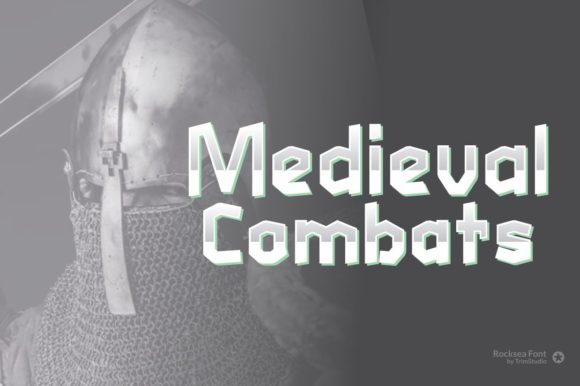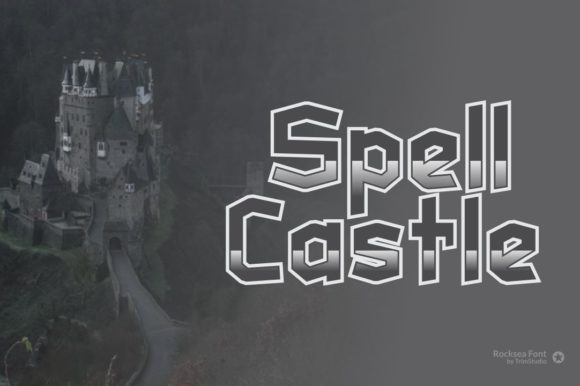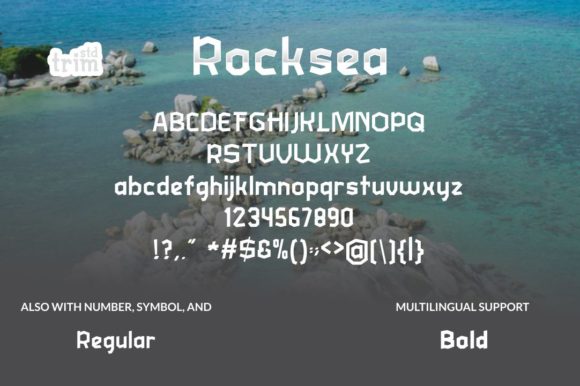
Introduction to Rocksea Font
Have you ever stared at a blank canvas, eager to bring your creative vision to life, but struggling to find the perfect design resource? This is where the magic of Rocksea Font comes in – a game-changing, bold display font that can elevate your creative project to new heights. Whether you’re working on a graphic design project, a branding campaign, or a digital art piece, Rocksea Font has the power to make your ideas shine.
With its unique and eye-catching design, Rocksea Font is a valuable addition to any designer’s toolkit. Whether you’re looking to create a stunning title, add a touch of elegance to your design, or simply want to experiment with a fresh new look, Rocksea Font is the perfect choice. And the best part? You can download it for free, giving you the freedom to unleash your creativity without any limitations.
- High-quality design resource suitable for creative projects, offering a professional look and feel.
- Includes a range of characters and glyphs, including uppercase and lowercase letters, numbers, and punctuation marks.
- Designed with a clean and modern aesthetic, making it perfect for use in logos, branding, and other visual identity projects.
Honest Review: Rocksea Font
I recently stumbled upon the Rocksea Font and was excited to give it a try for my latest creative project. As a designer, I’m always on the lookout for high-quality design resources that can elevate my work. The Rocksea Font did not disappoint.
- ✨ Unique and stylish design: The Rocksea Font has a distinct look that sets it apart from other fonts. Its bold lines and curves make it perfect for headings and titles.
- ⚠️ Limited font variations: While the font itself is well-designed, I wish there were more variations available, such as bold and italic styles.
- ⚠️ Not suitable for body text: Due to its bold design, the Rocksea Font is not ideal for large blocks of body text. It’s best used for headings and titles.
Overall, I’m impressed with the Rocksea Font and would definitely recommend it to designers who are looking for a unique and stylish font for their creative projects. While it may have some limitations, its high quality and free download make it a valuable addition to any design resource library.
Common Use Cases for Rocksea Font
Rocksea Font is commonly used in graphic design, digital art, and creative projects. Its unique style and transparent background make it ideal for creating engaging designs, logos, and graphics.